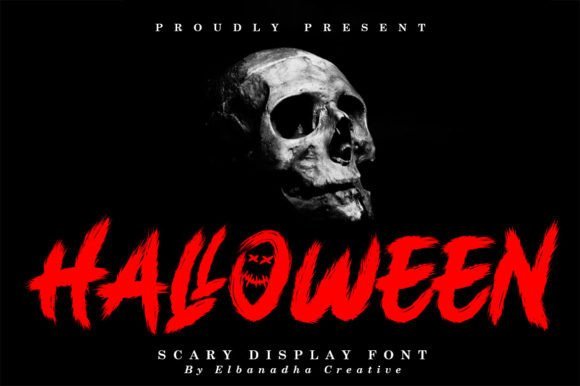
The Spooky Charm of Halloween Font
As the sun sets on a crisp autumn evening, the air is filled with the whispers of a haunted season. The flickering jack-o-lanterns cast eerie shadows on the walls, and the wind carries the faint scent of pumpkin spice. It’s the perfect time to unleash your creativity and get spooky with the right font – enter the enchanting Halloween Font.
This bewitching display font is the perfect companion for designers looking to add a touch of Halloween magic to their creations. With its PUA-encoded glyphs, you can effortlessly access a wide range of spooky symbols, from ghosts to bats, to create a truly immersive experience. Whether you’re designing invitations, social media posts, or greeting cards, the Halloween Font is sure to cast a spell on your audience.
Halloween Font Key Features
- Font Family: Halloween is a unique, hand-drawn font designed specifically for the Halloween season.
- Character Set: Includes a wide range of characters, including uppercase and lowercase letters, numbers, and special symbols.
- Resolution: Optimized for high-resolution displays, ensuring crisp and clear text rendering.
- Unique Characteristics: The font features spooky, hand-drawn elements, such as cobwebs, spiders, and jack-o-lanterns, adding a festive touch to any design.
Halloween Font Review
Overall, I think the Halloween Font is a fun and playful addition to any project, especially around Halloween or fall-themed designs. ✨ Here are some of the things I think it does well:
- Unique character set that includes creepy and festive icons
- Easy to use and customize in most design applications
- Perfect for creating spooky or whimsical content
- Good for adding a seasonal touch to newsletters, social media, or website headers
- Limited flexibility in terms of font size and color customization
- May not be suitable for formal or professional designs
- Some characters may not display correctly in certain fonts or sizes
- Not ideal for body text or large blocks of content
Overall, I think the Halloween Font is a fun and creative choice for designers who want to add a seasonal touch to their projects. While it may have some limitations, it’s a great option for creating spooky or whimsical content.
The Halloween font is ideal for creating spooky and eerie designs, such as:
– Invitations and party decorations
– Social media graphics and ads
– Print materials like posters and flyers
– Digital assets like GIFs and animations
To get the most out of the Halloween font, try combining it with other spooky elements, such as:
– Using bold and italic styles to create a sense of depth and dimension
– Adding graphics and images to create a sense of atmosphere
– Experimenting with different font sizes and colors to create visual interest
Alternatives to Halloween Font for Designers
Copperplate Font
Copperplate is a elegant, cursive font that can be used to create a spooky or vintage atmosphere. It’s perfect for titles, headings, or any text that needs a touch of sophistication. Compared to Halloween Font, Copperplate is more refined and less bold, making it suitable for a wider range of design projects.
Playfair Display is an elegant, high-end serif font that can add a touch of luxury to your designs. It’s ideal for use in titles, headings, or anywhere you want to convey a sense of sophistication and elegance. Compared to Halloween Font, Playfair Display is more refined and less playful, making it suitable for high-end branding and marketing materials.
Great Vibes is a modern, cursive font that can be used to create a fun and playful atmosphere. It’s perfect for use in titles, headings, or anywhere you want to convey a sense of energy and excitement. Compared to Halloween Font, Great Vibes is more modern and less spooky, making it suitable for a wider range of design projects.